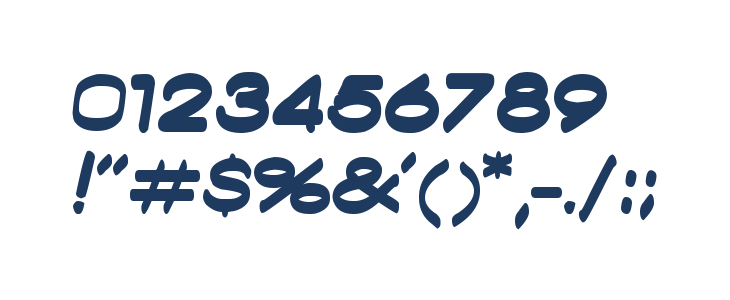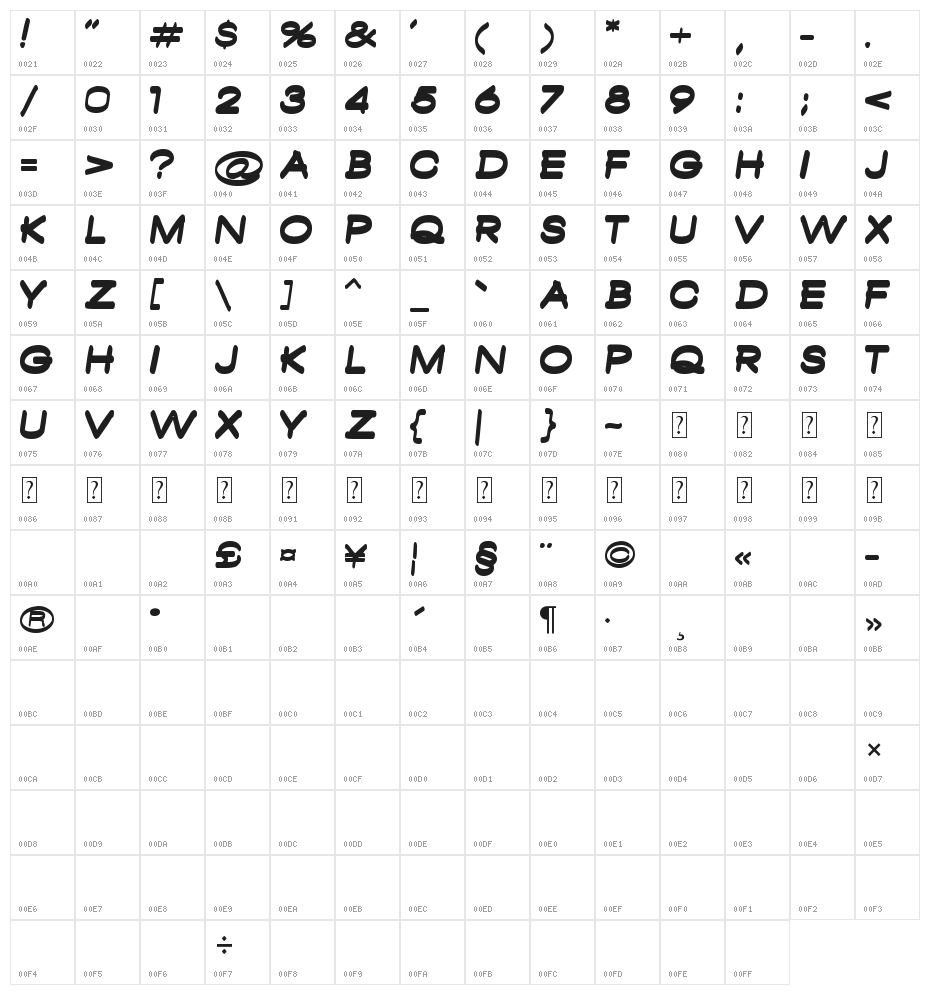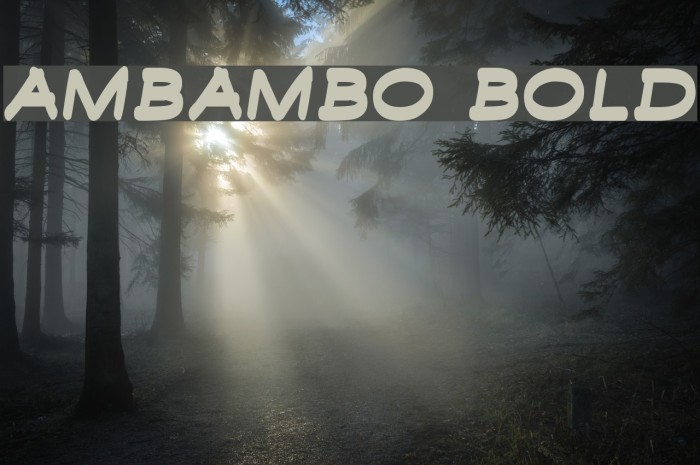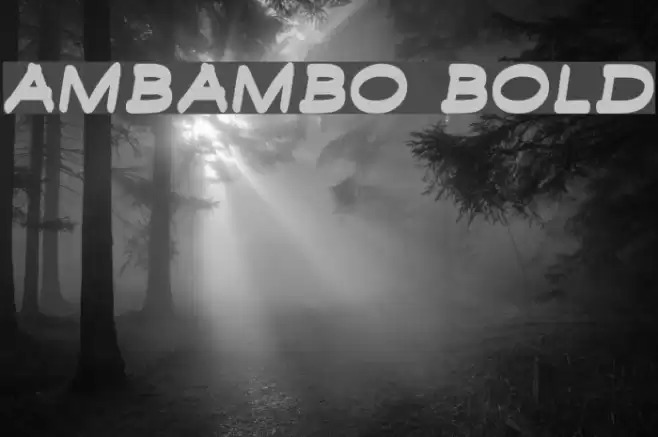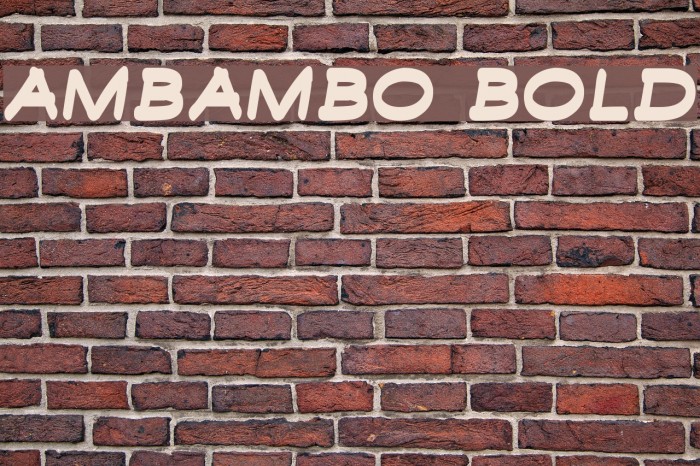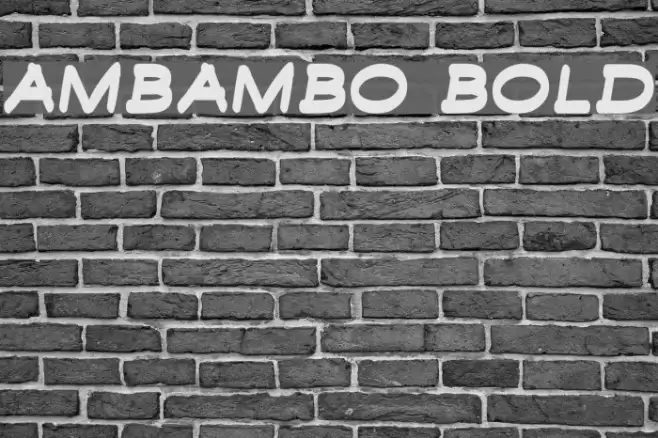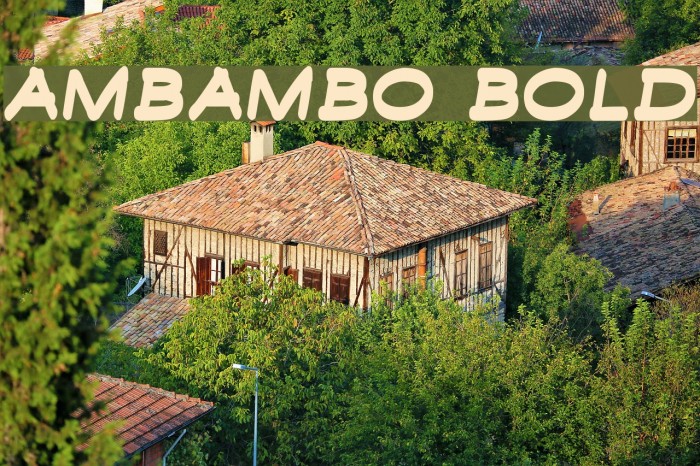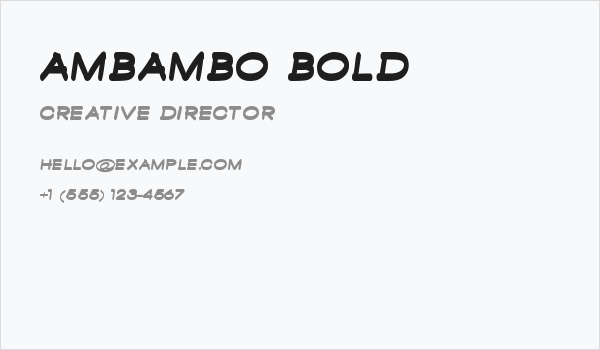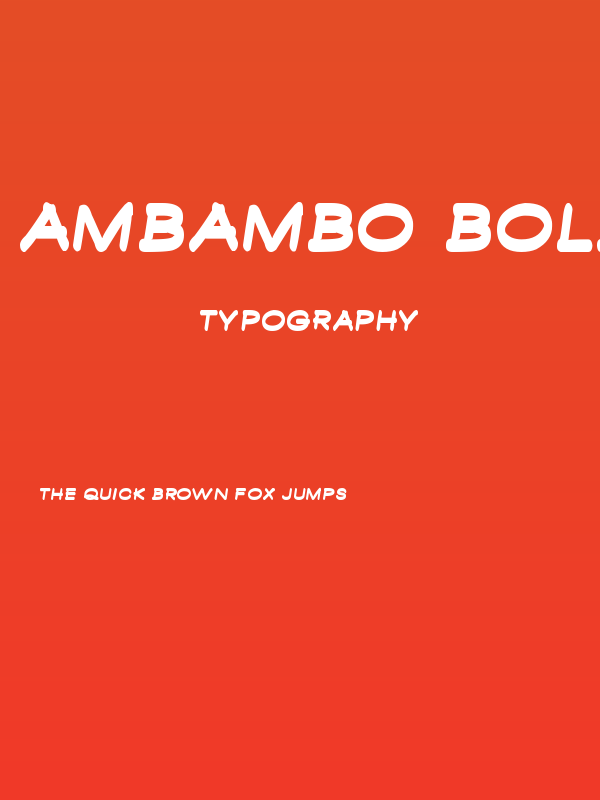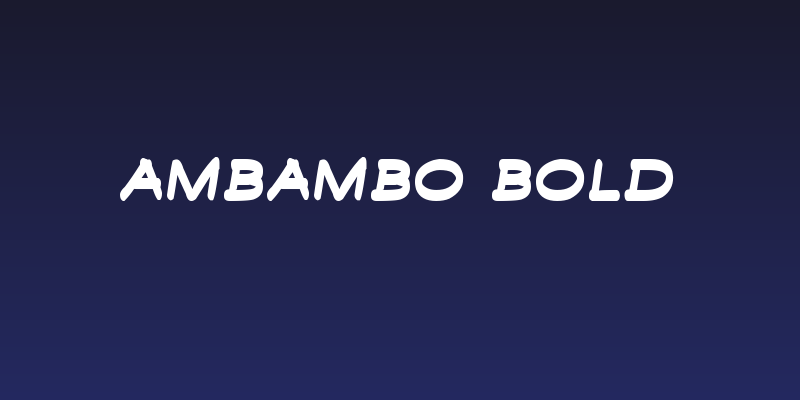
Ambambo Bold Font
Ambambo Bold Description
This font features a bold and playful design with a distinctively rounded and smooth appearance. The characters are thick and have a slightly italicized slant, giving them a dynamic and energetic feel. The strokes are consistent in weight, contributing to a cohesive and uniform look across all characters. The rounded edges and soft curves add a friendly and approachable vibe, making it suitable for a variety of creative projects. The numbers and special characters maintain the same playful style, ensuring consistency throughout the typeface. This font is ideal for projects that require a bold statement with a touch of fun and creativity.
| Overall Style | Playful, Modern |
| Proposed Projects | Ideal for children's books, playful branding, posters, and creative advertisements. |